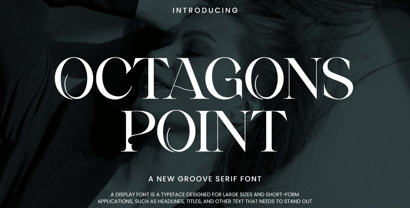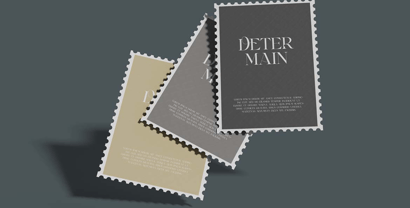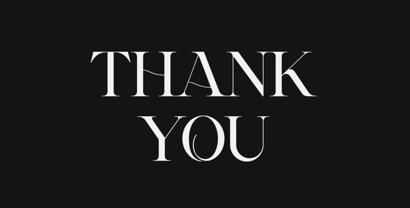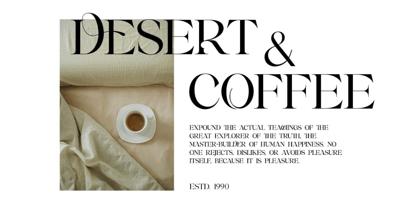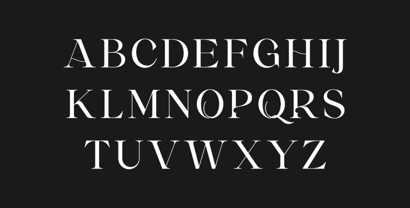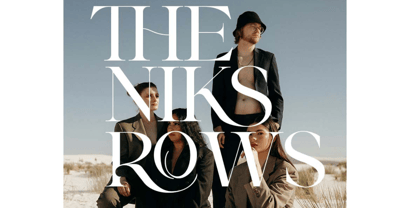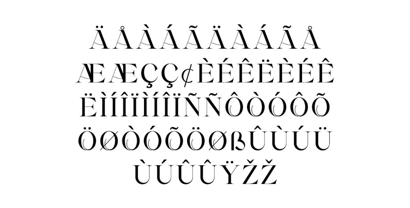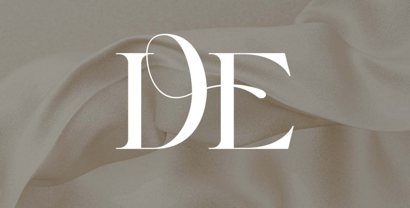
OCTAGONS POINT
The OCTAGONS POINT Font Family was designed by Hero and published by UICreative. OCTAGONS POINT contains 1 styles. More about this family
Introducing our new product the name is Octagons Point Serif Font. Octagons Point Serif Font that feels beautiful classy, elegant, and modern. This font is perfectly suited for a wide variety of projects, such as signature, stationery, logo, wedding, typography quotes, magazine or book covers, website headers, clothing, branding, packaging design, and more. Also, fashion-related branding or editorial design displays both masculine and feminine qualities.